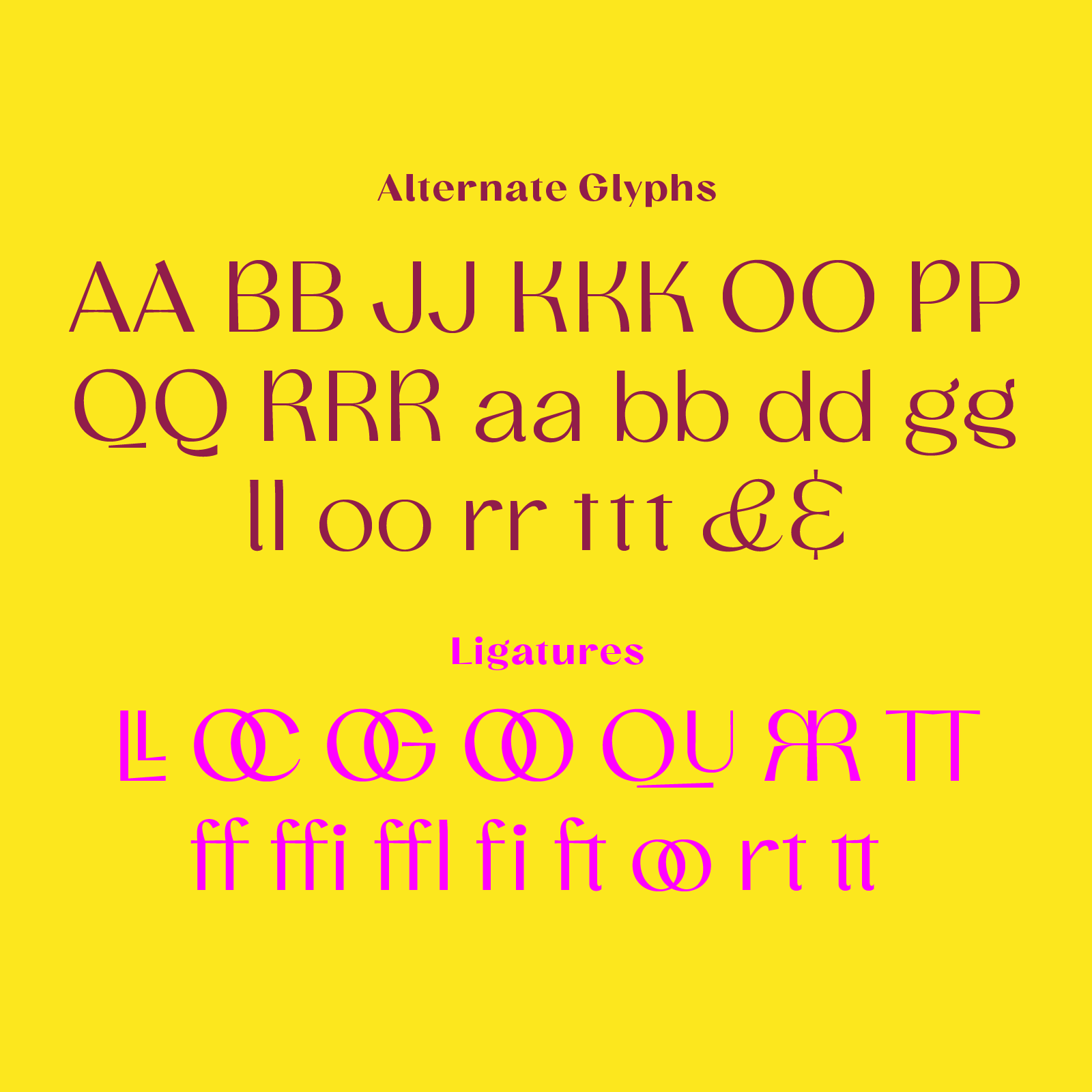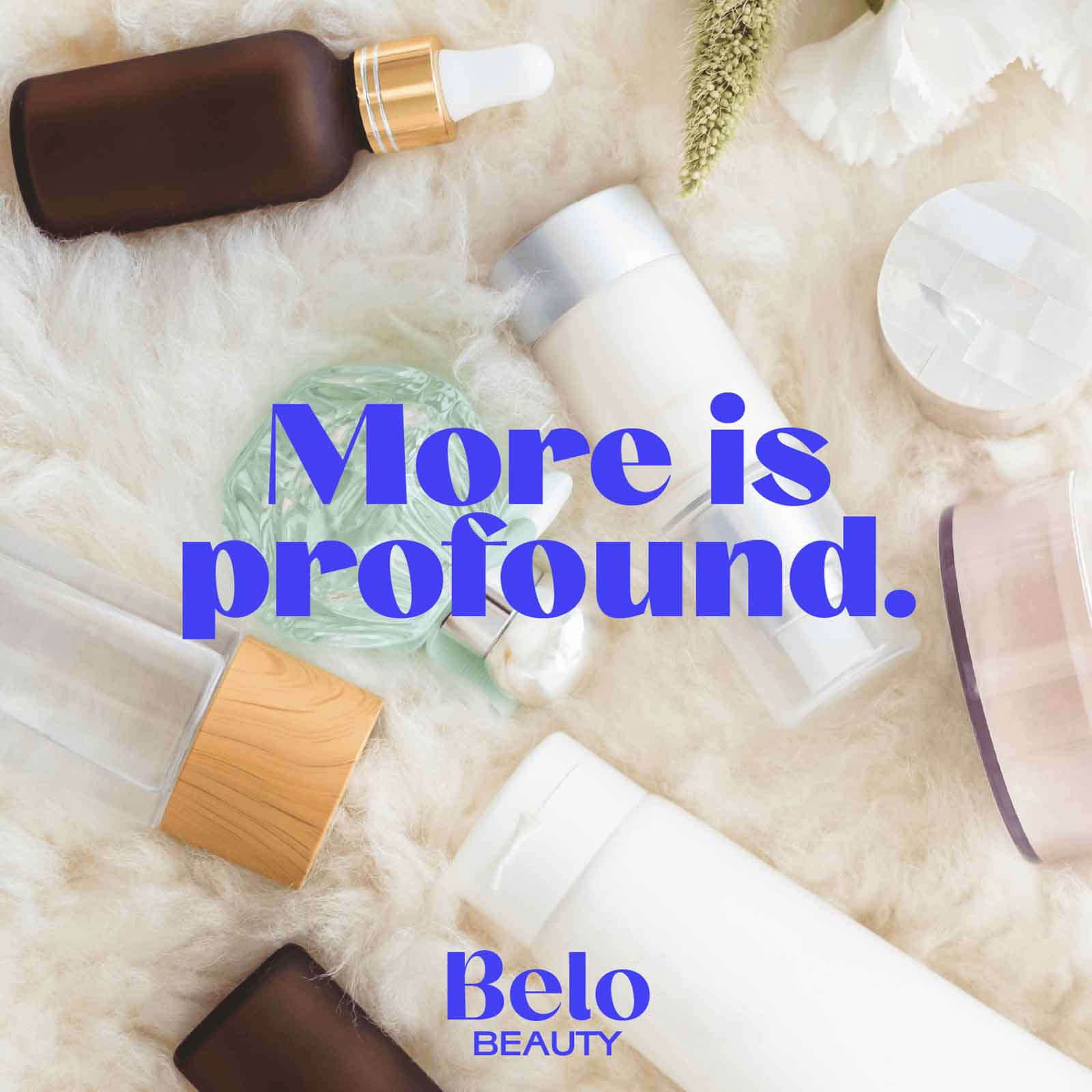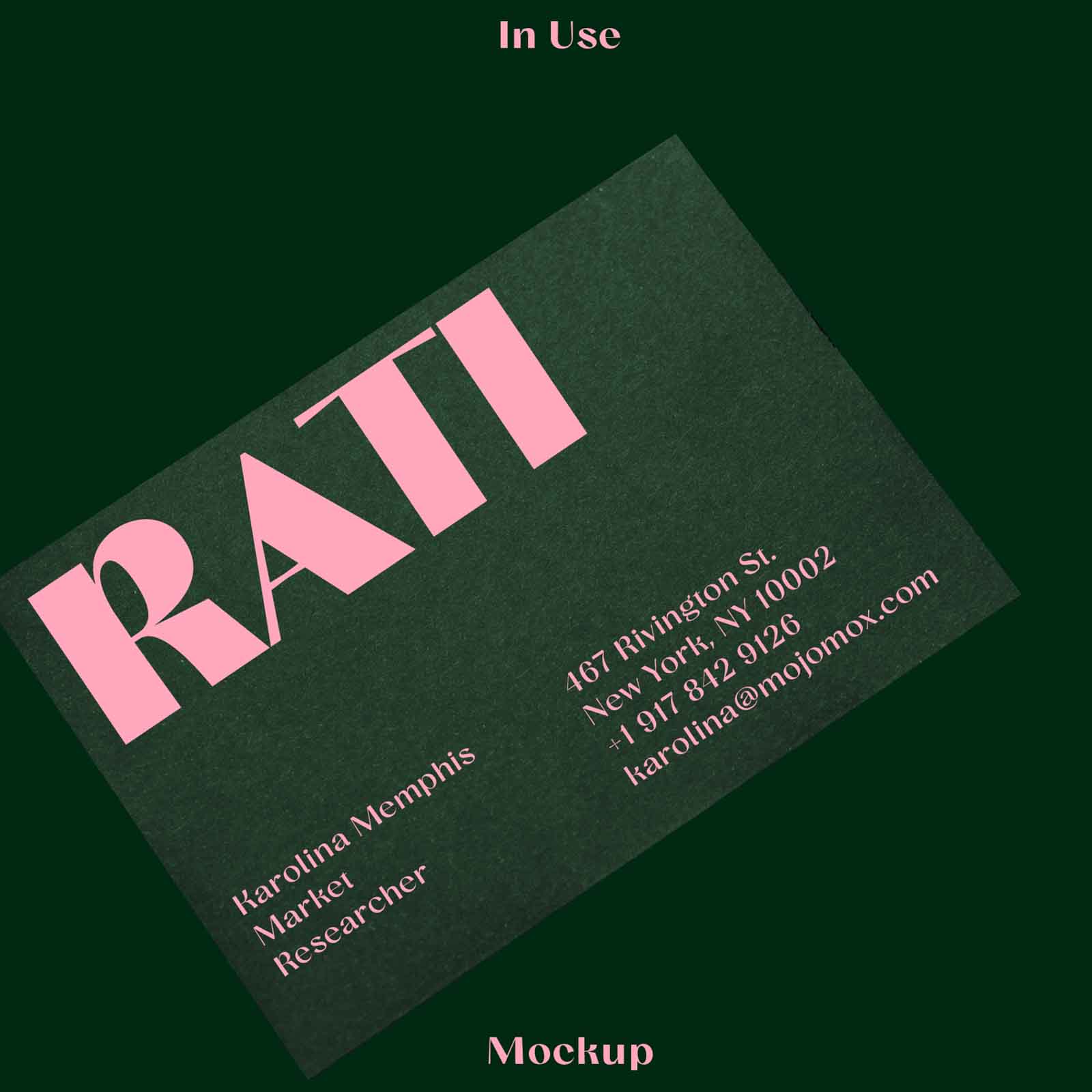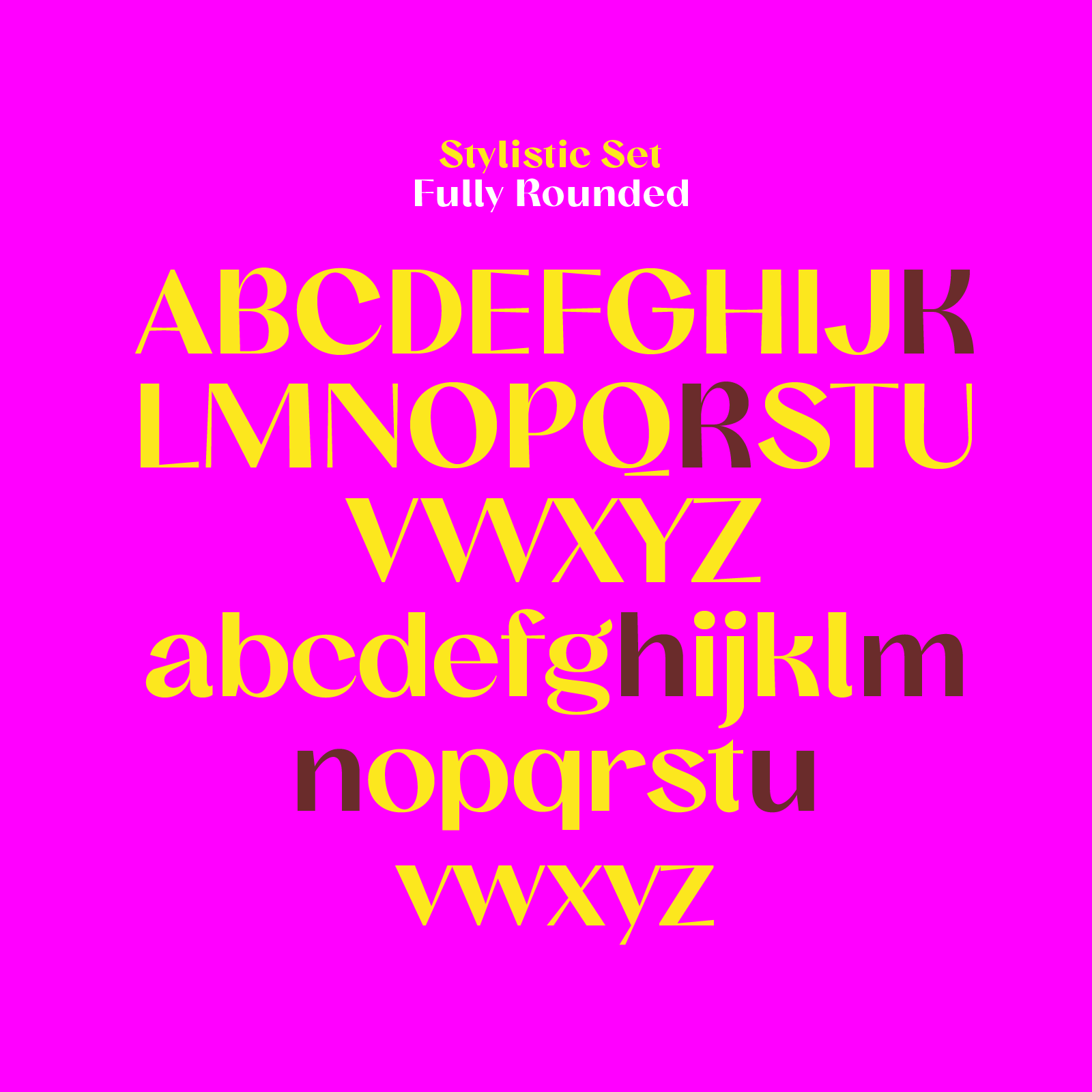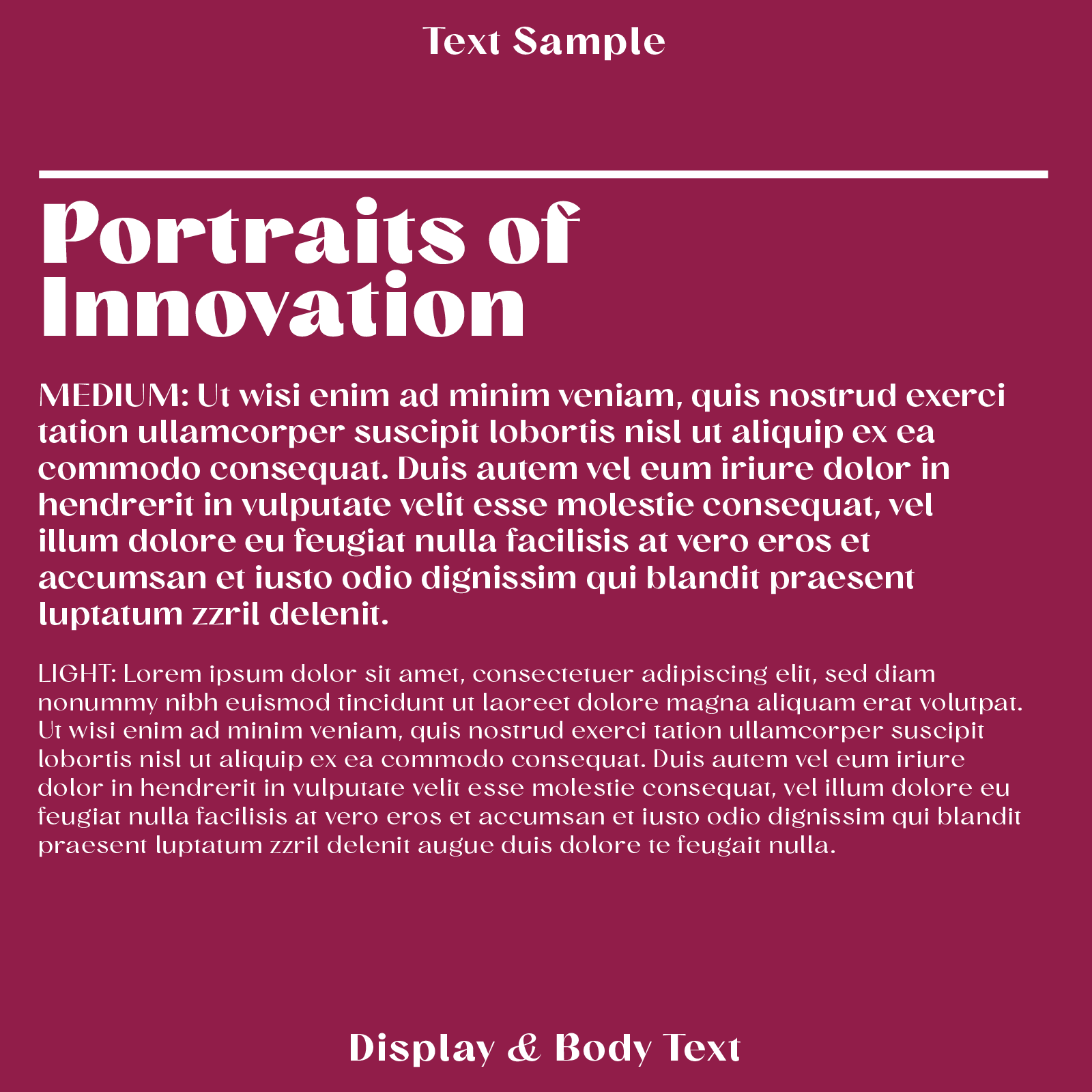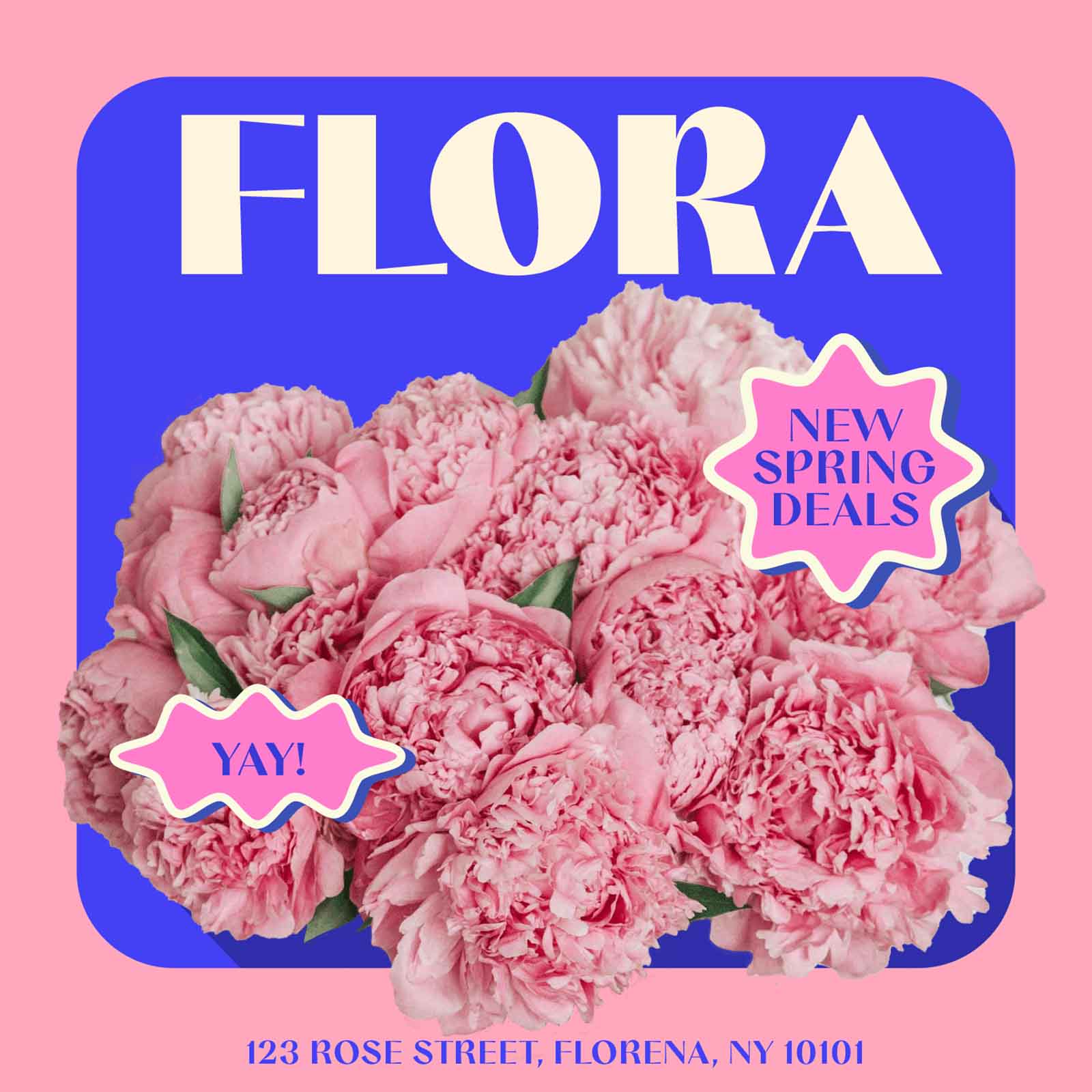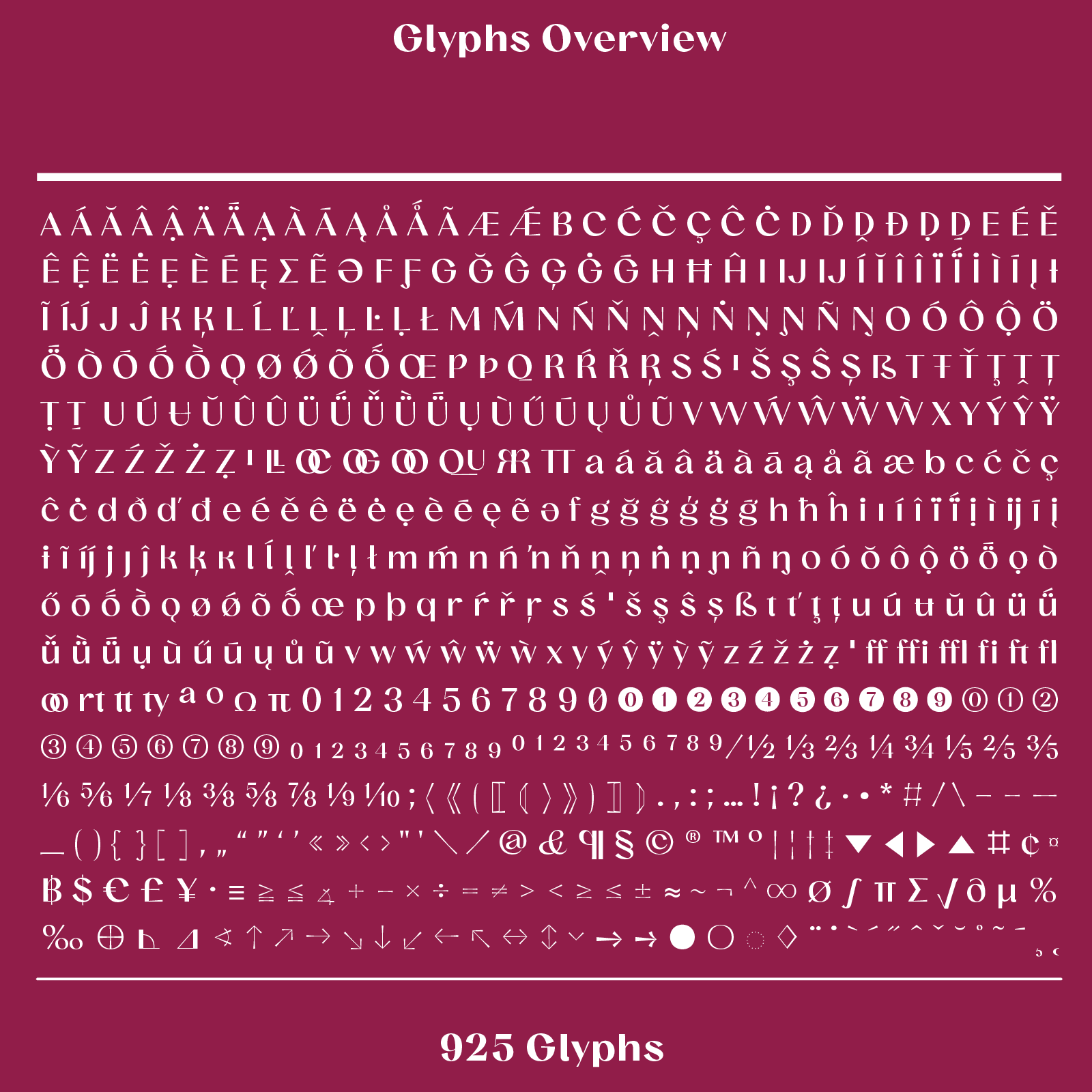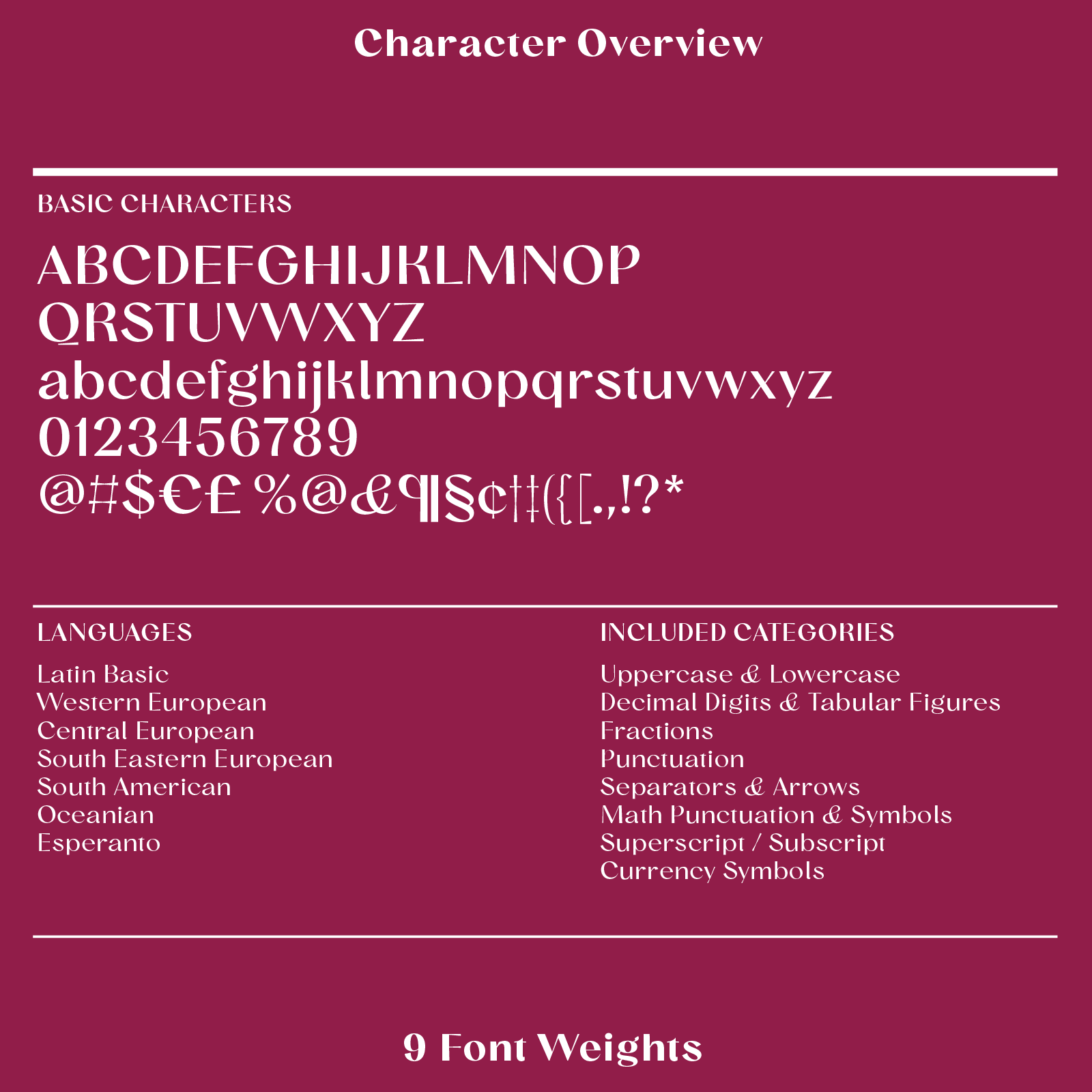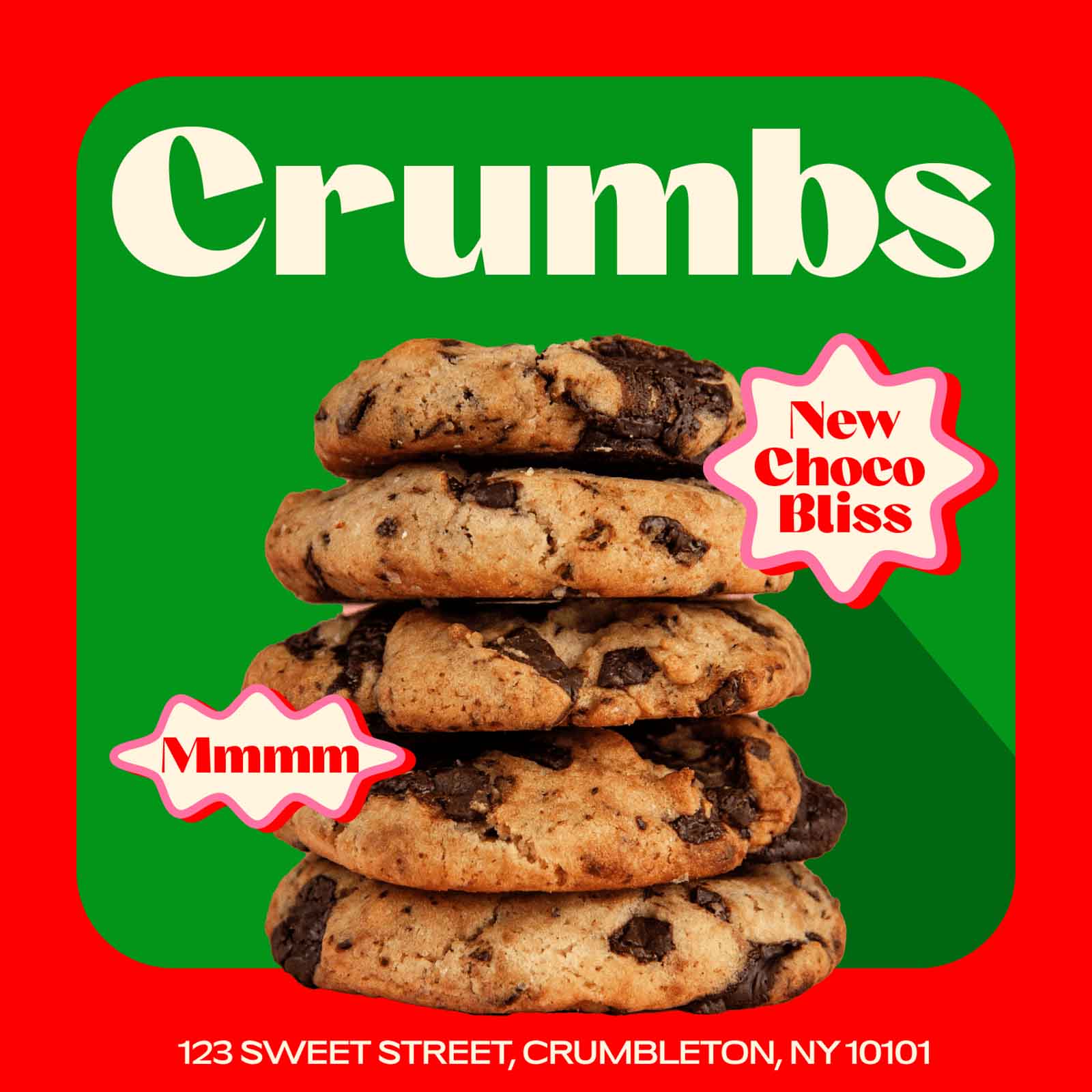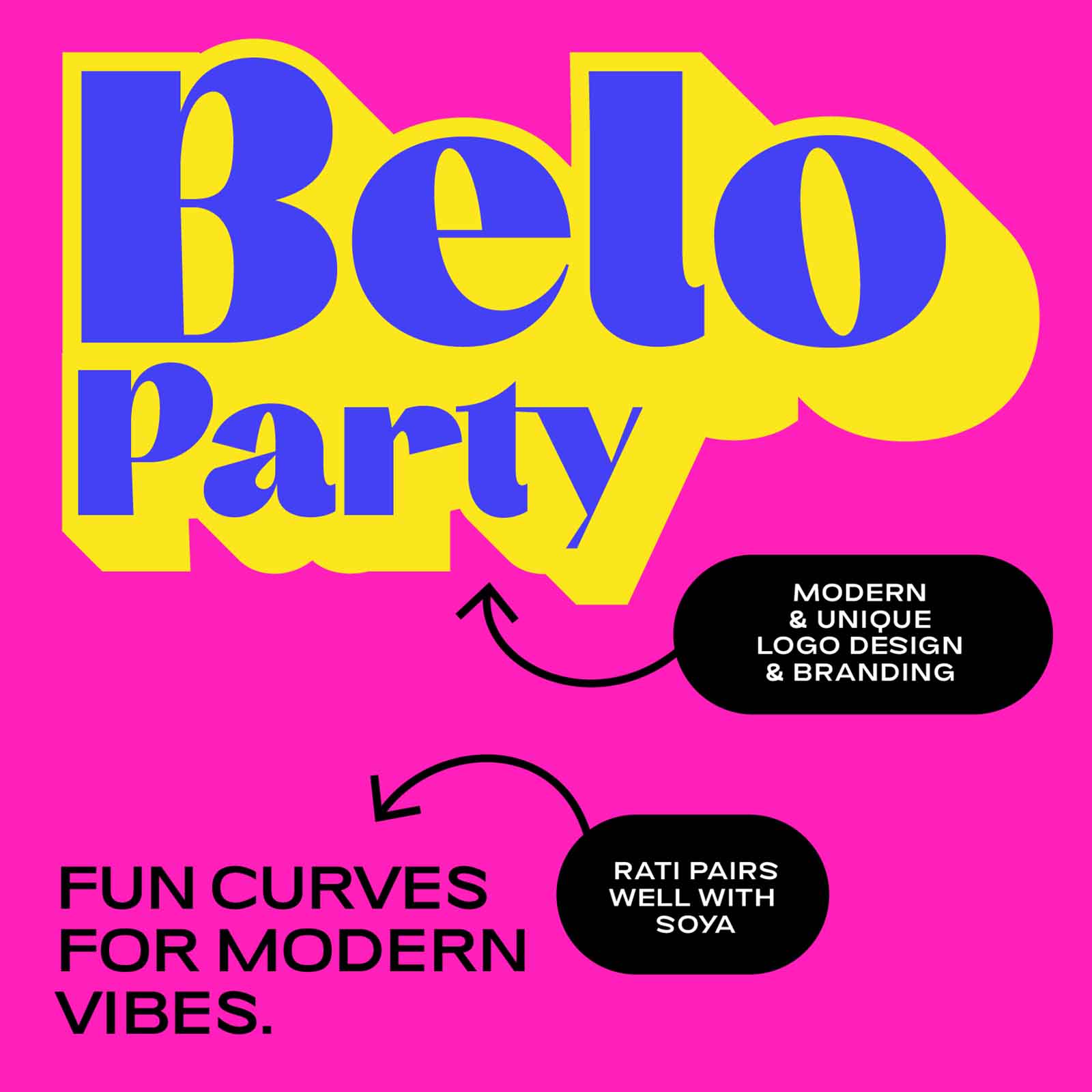
Rati, modern elegant font family with an edge
Rati—High Contrast Sans Serif Font
About Rati · High contrast sans · Creative
Elegant, with a creative edge.
Rati is an elegant contrast typeface with unique details. Its added roundedness and sharp terminals work for brands balancing a modern style with a creative edge.
It’s designed for logos and titles, transitioning from elegant lighter styles to a strong, contemporary voice in the bolder weights. Available in nine weights from Thin to Black and as a full family, including a variable font.
9 + VFweights, Thin to Black, plus one variable file
939glyphs
8stylistic sets
LatinWestern and Central European
Rati started as a wordmark typeface, with a loopy B, P and R and a young, fun look.
A sans with stroke contrast, soft curves and sharp ends. The l and t finish in a small curled foot.
Thin is delicate, Black has heavier curves for a short headline, and set small it still reads easily. Restaurants, food packaging, jewelry and fashion labels.
9 weights, Thin to Black, plus a variable font. 939 glyphs, 8 stylistic sets.
Latin, Western European, Central European.
Proportional, tabular, slashed zero.
Case-sensitive punctuation, discretionary ligatures, fractions, standard ligatures, ordinals.
ff fi fl ffi ffl ft tt ty TTon by defaultoo OO OC OG QU RR LL rtdiscretionary, switch on in your app